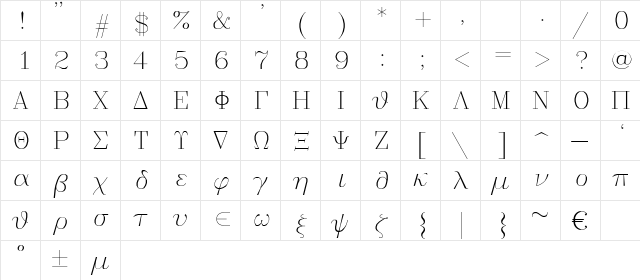
GreekC Regular
Design Context for GreekC Typeface
GreekC offers clean, dependable letterforms without strong stylistic allegiance, making it a practical choice for designers who need flexibility.